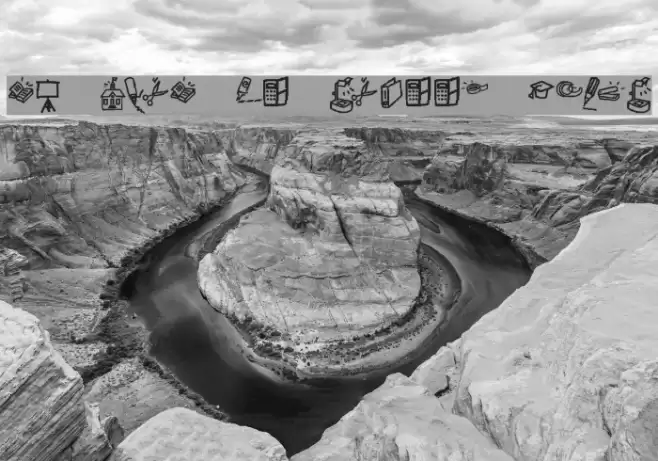
KR Back To School Dings Font
This is a playful and thematic dingbat font featuring a variety of school-related icons. The symbols include items such as pencils, school buildings, graduation caps, compasses, books, and other educational tools. Each character is a unique illustration, capturing the essence of a school environment. The style is hand-drawn and whimsical, making it perfect for projects that require a fun and educational theme. The icons are bold and clear, ensuring they stand out in any design.
- Proposed Projects: Ideal for educational materials, school event posters, children's book illustrations, and classroom decorations.
- Use Case: Logos, Posters, Educational Materials